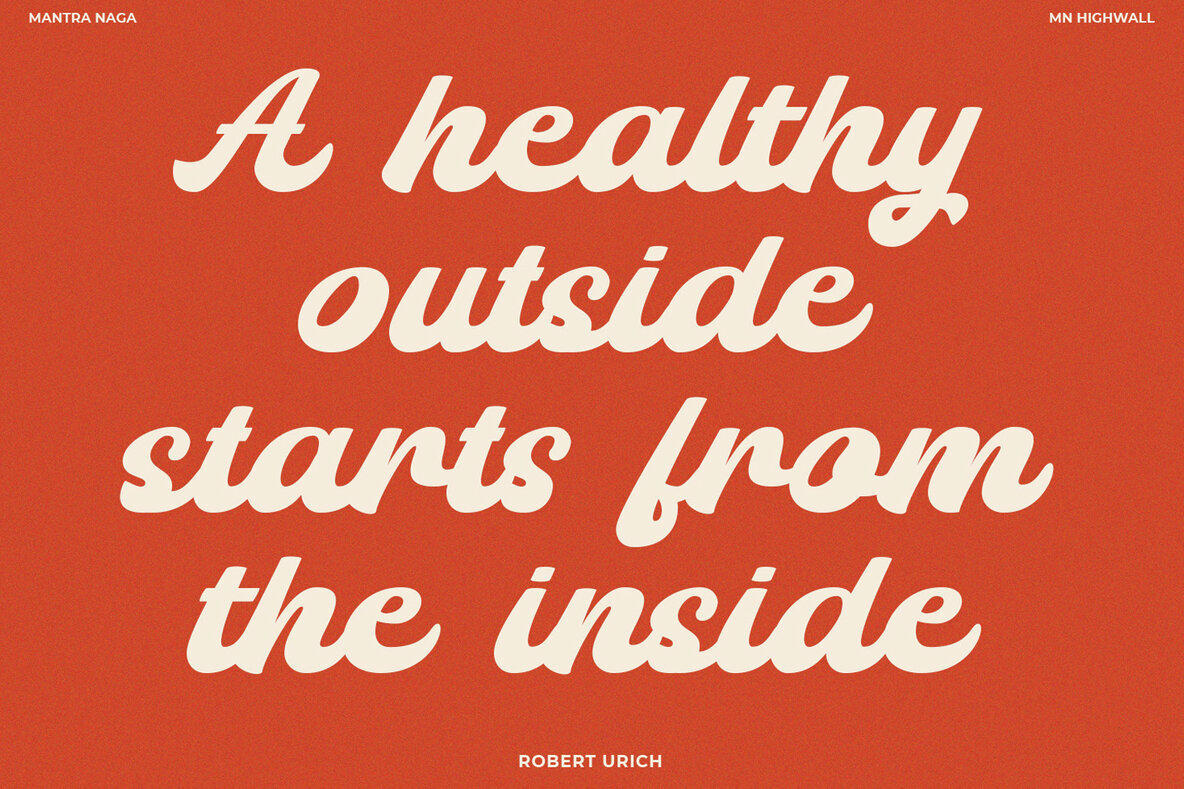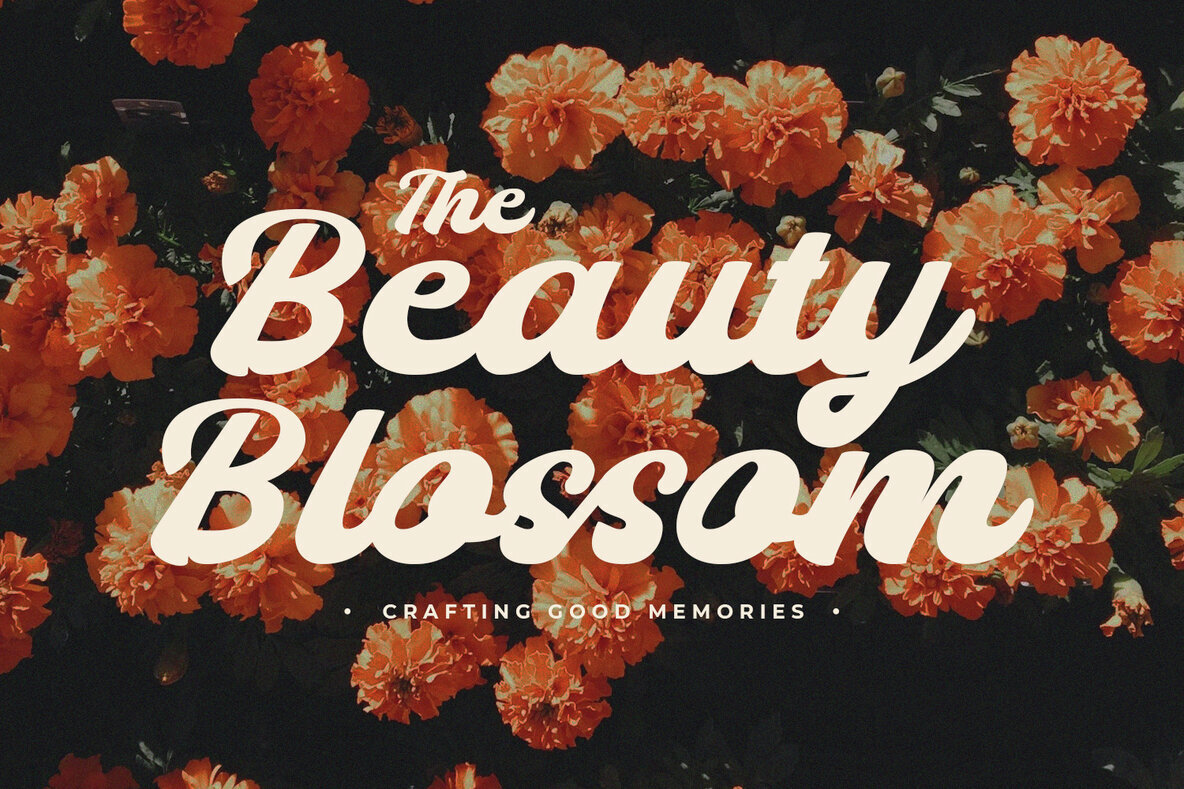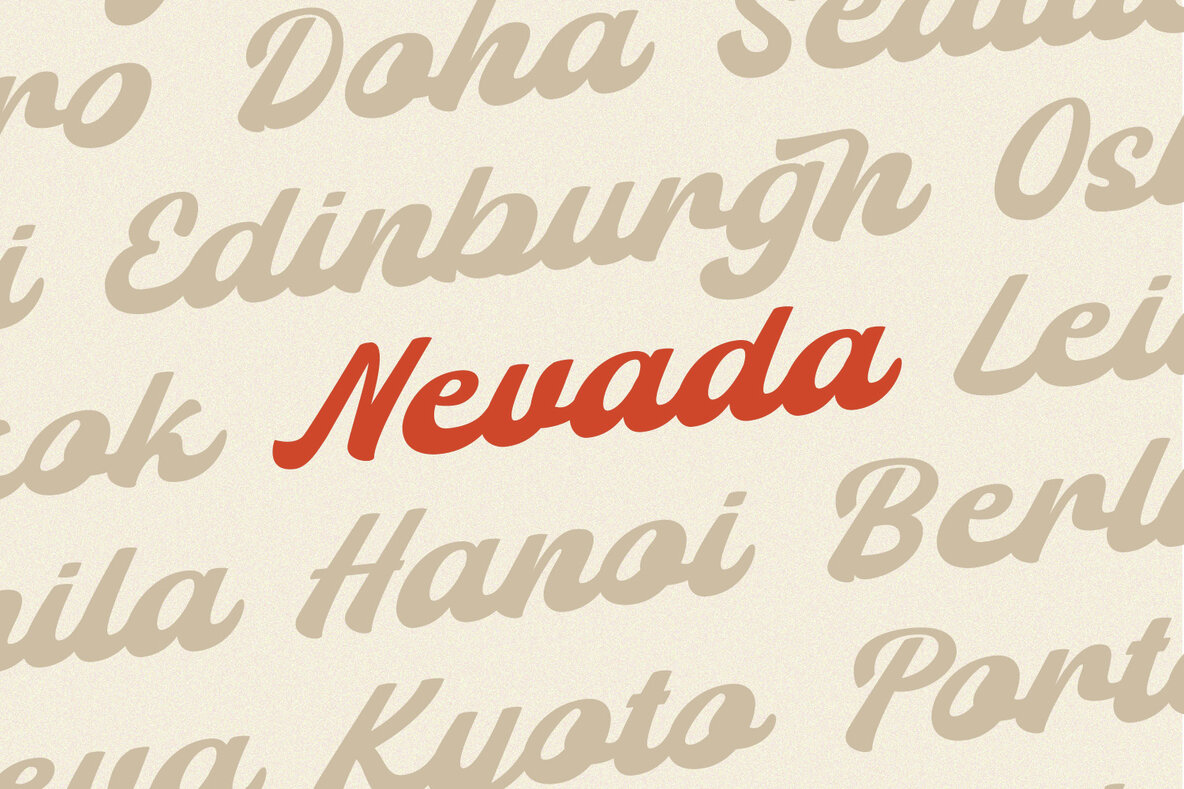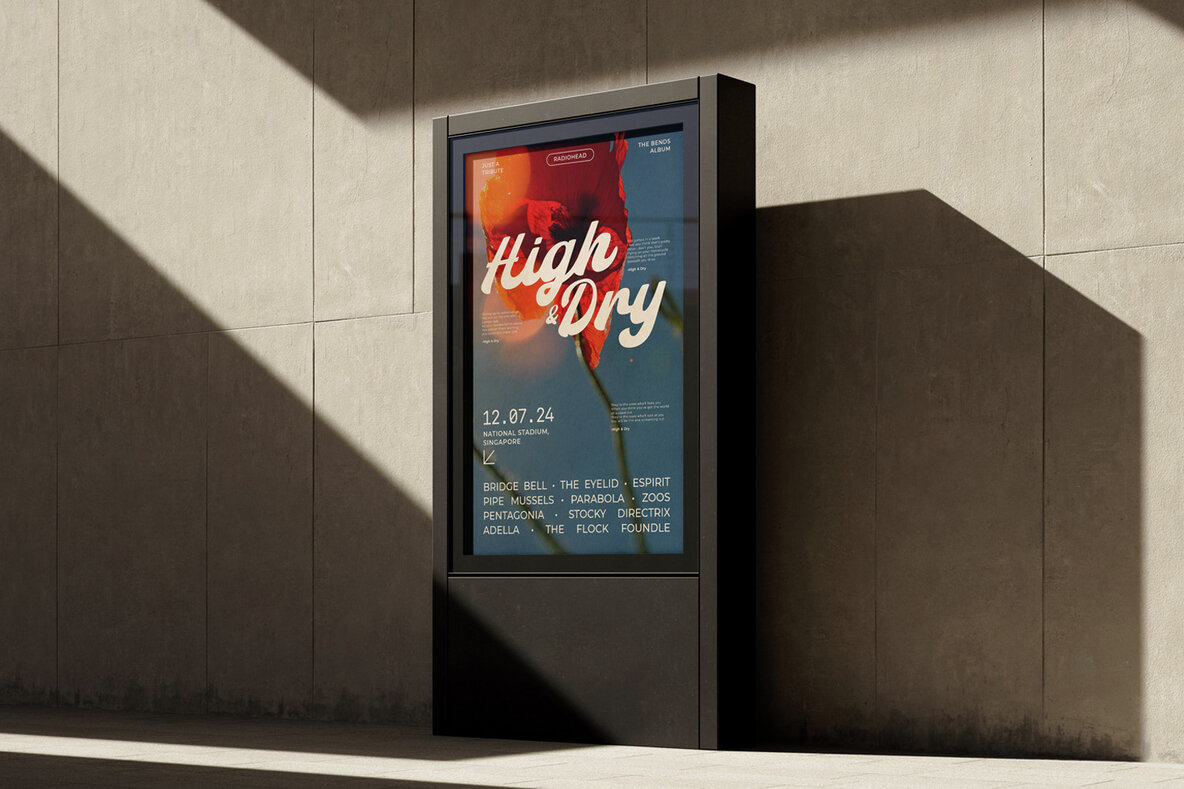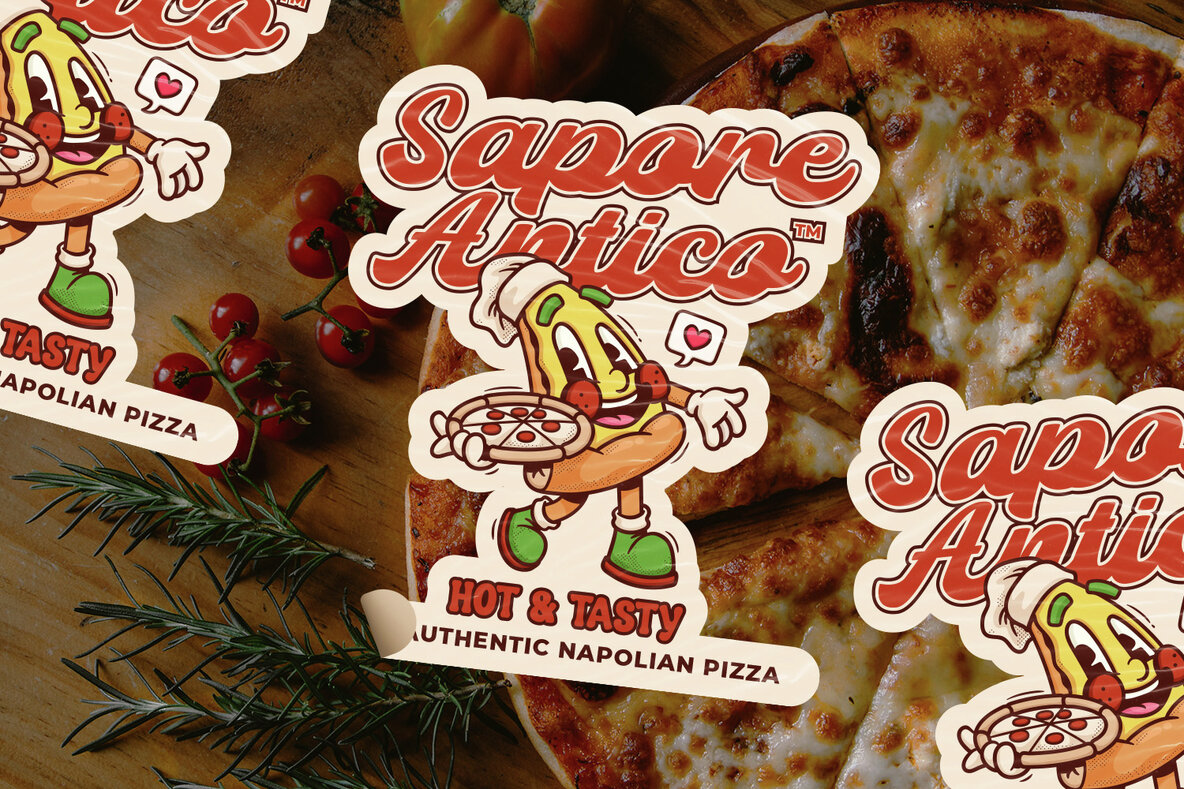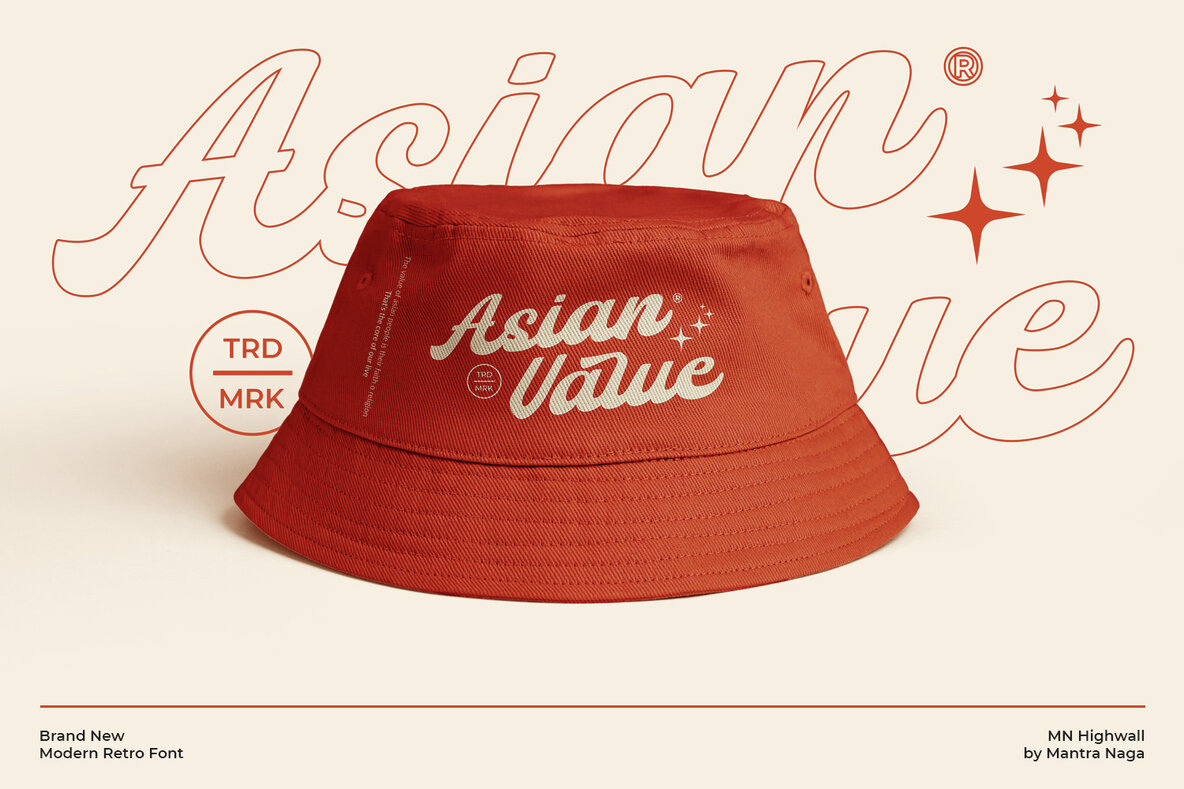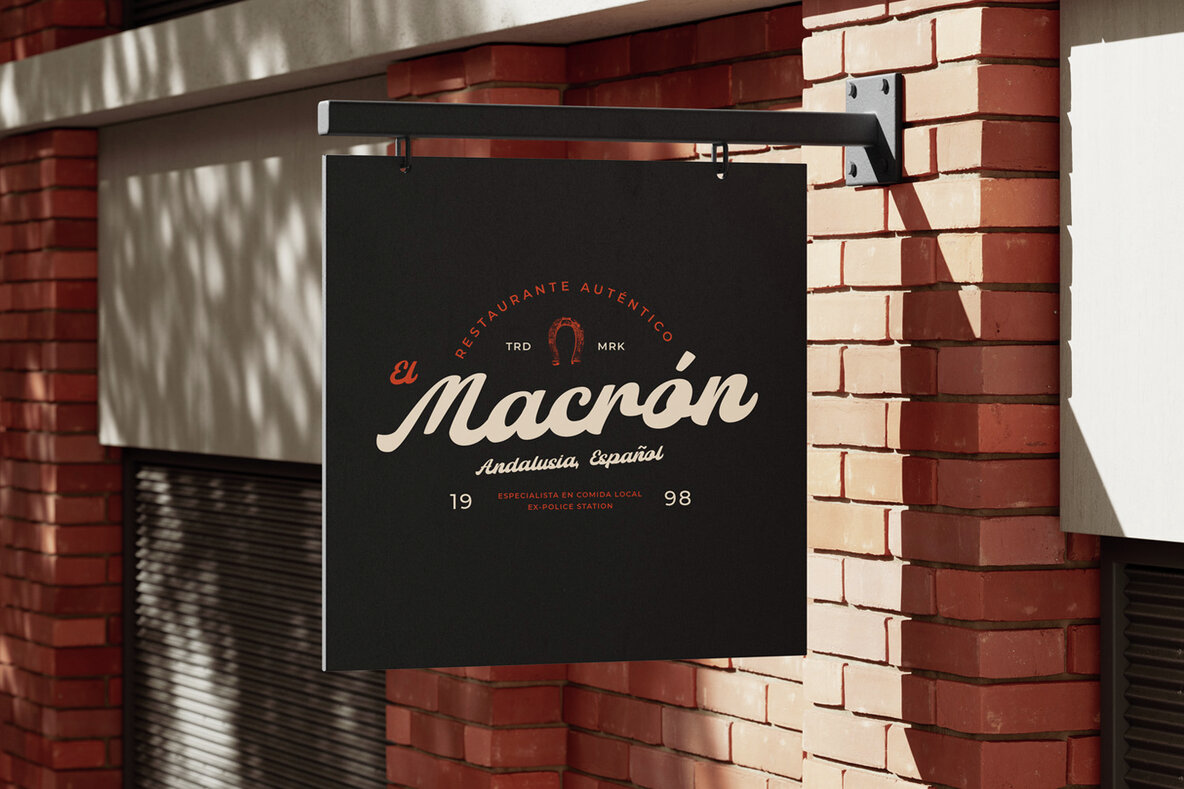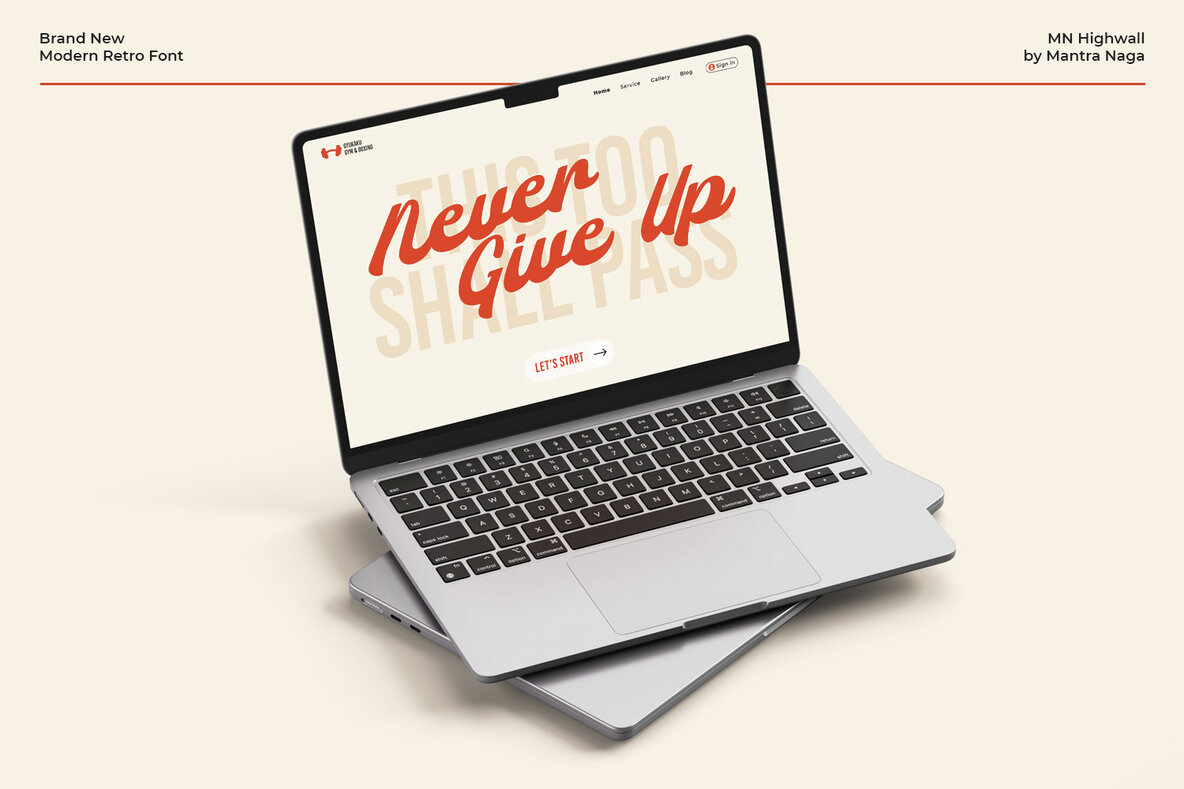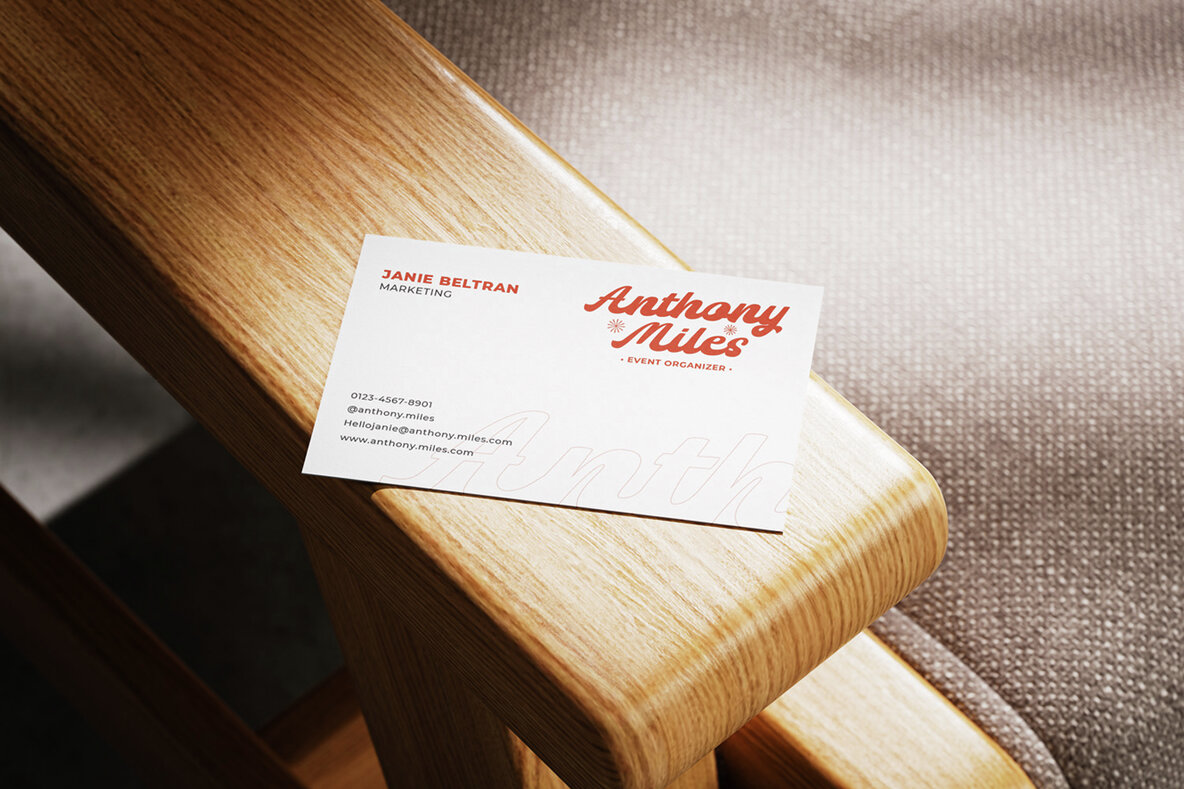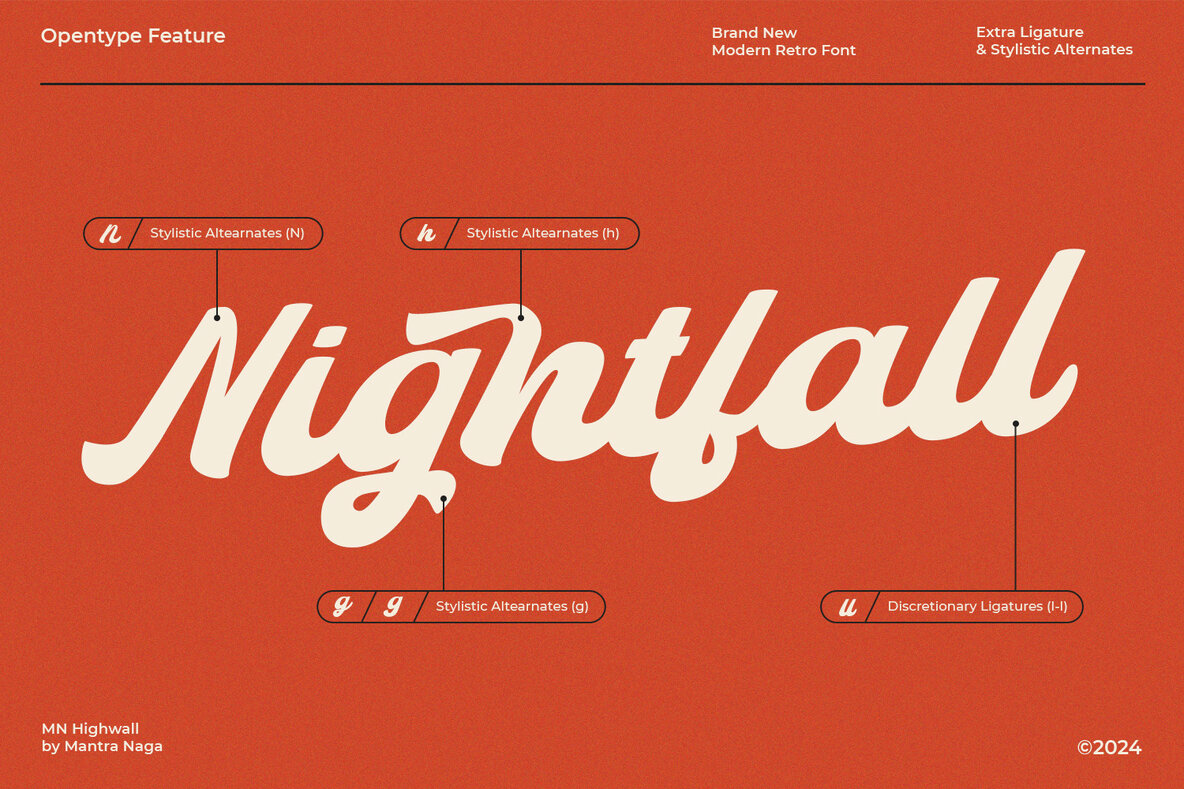
MN Highwall Font
MN Highwall is a modern retro script font that blends a classic retro look with a contemporary twist, making it ideal for headlines, branding, and logos. Its bold and distinctive style ensures your text stands out in any design project. The font includes special features like alternate characters and ligatures, adding versatility to your creative endeavors.
Additionally, MN Highwall supports multiple languages, making it suitable for global use. Whether you're aiming for a vintage feel or a unique modern appearance, this font will make your text pop. Perfect for creating that standout look, it combines the charm of retro script with the sleekness of modern design.